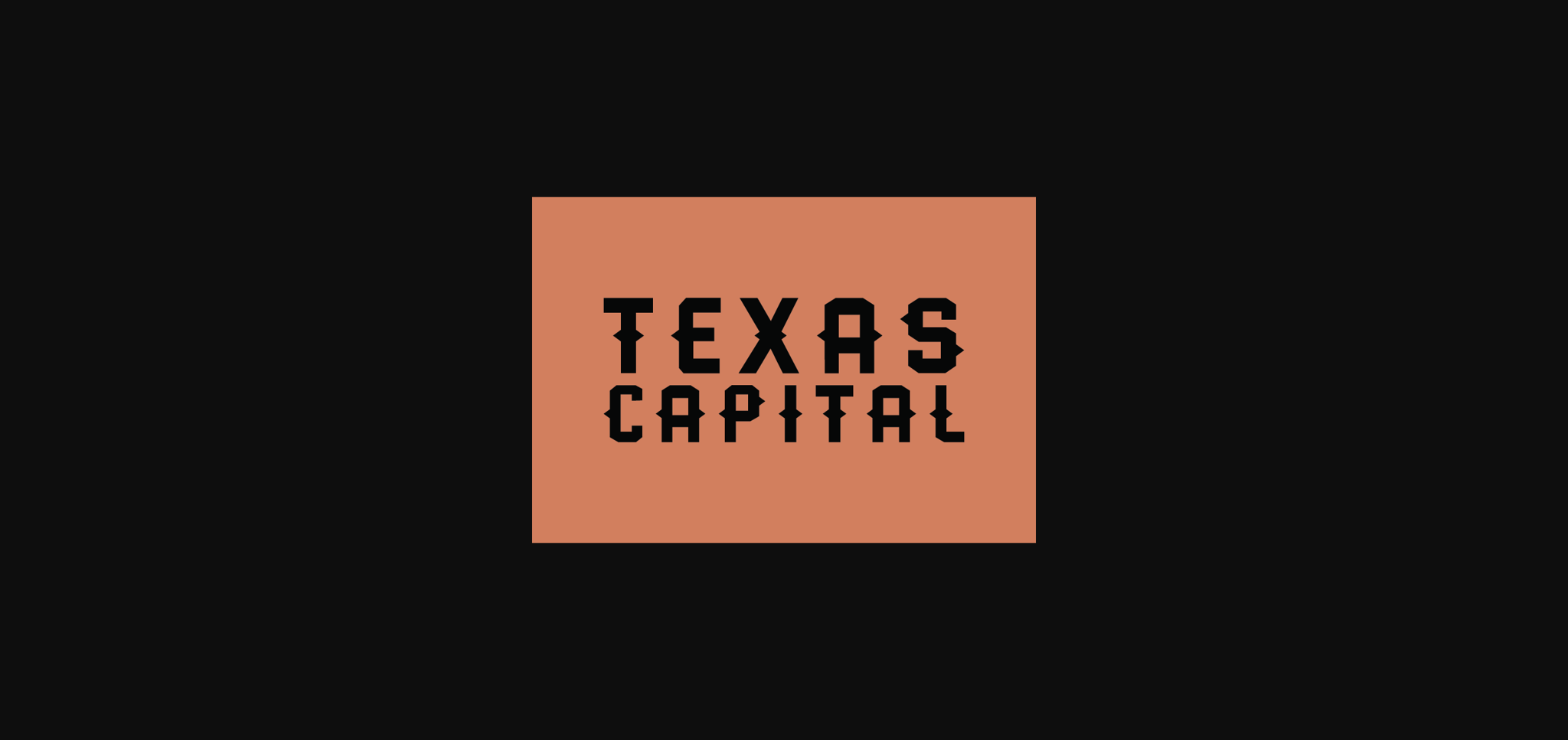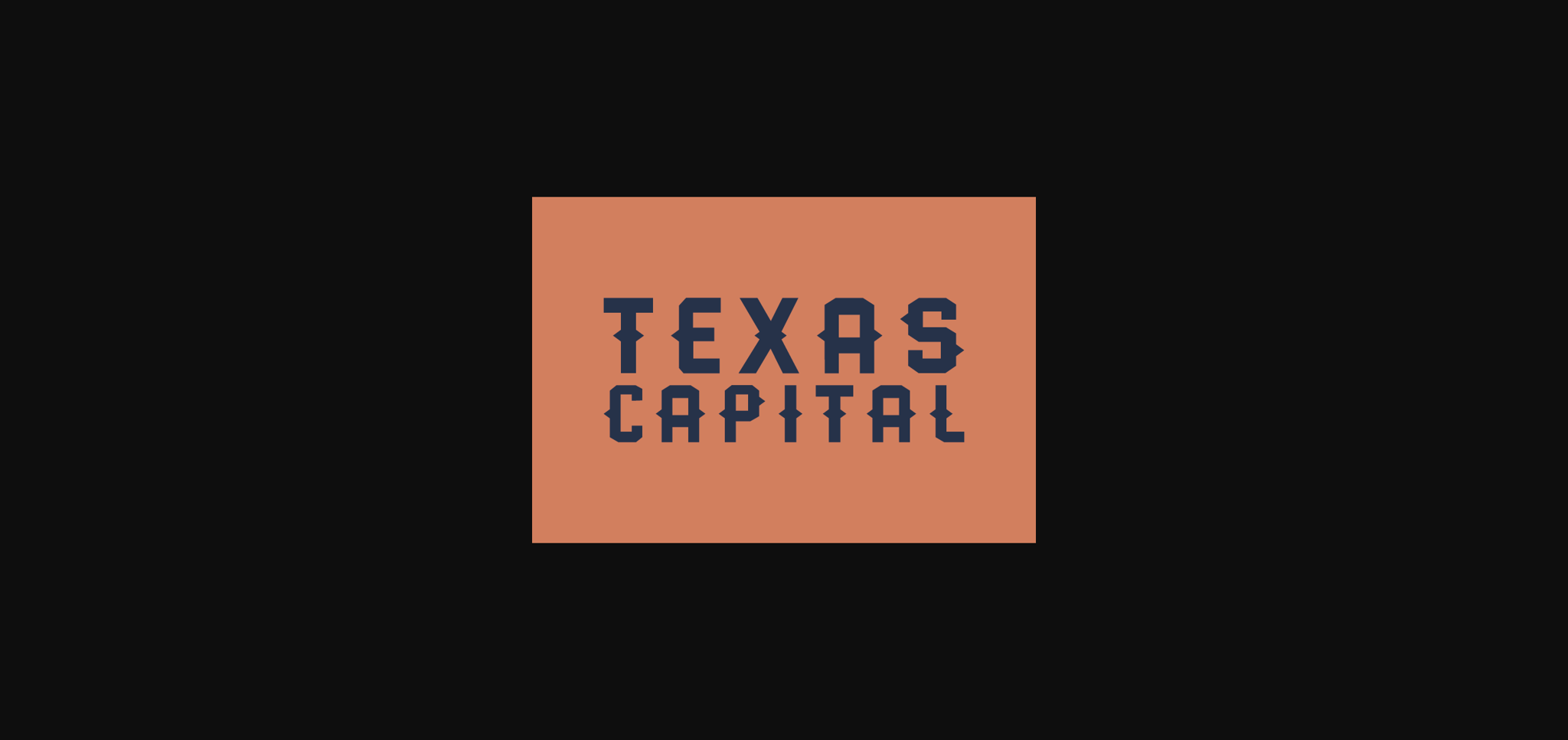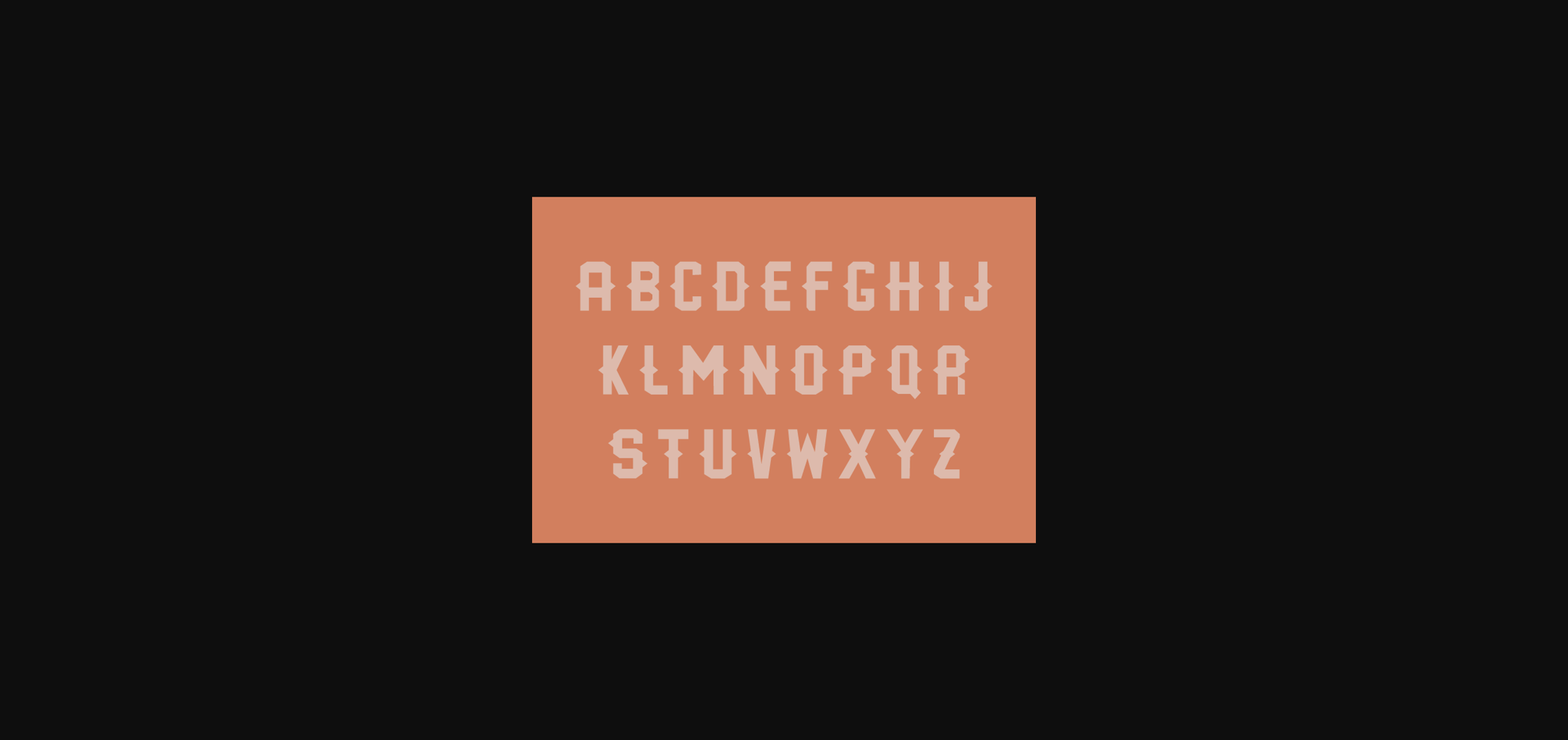
About Texas Capital Font
Texas Capital is a simple Western-style Sans serif font designed for a clean retro look. With its vintage balanced proportions, this font is perfect for creating a minimalist aesthetic in logos, web design, and branding.